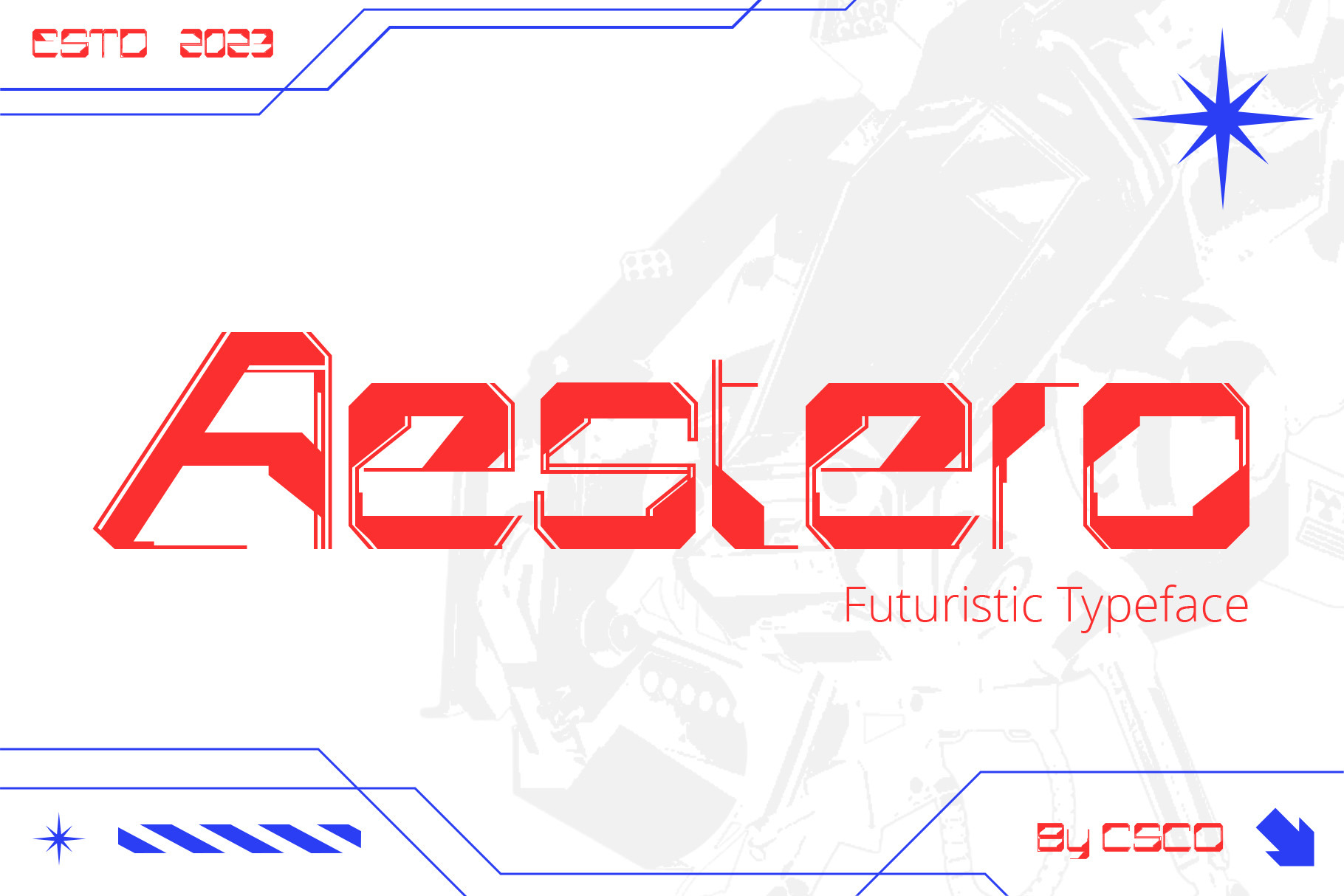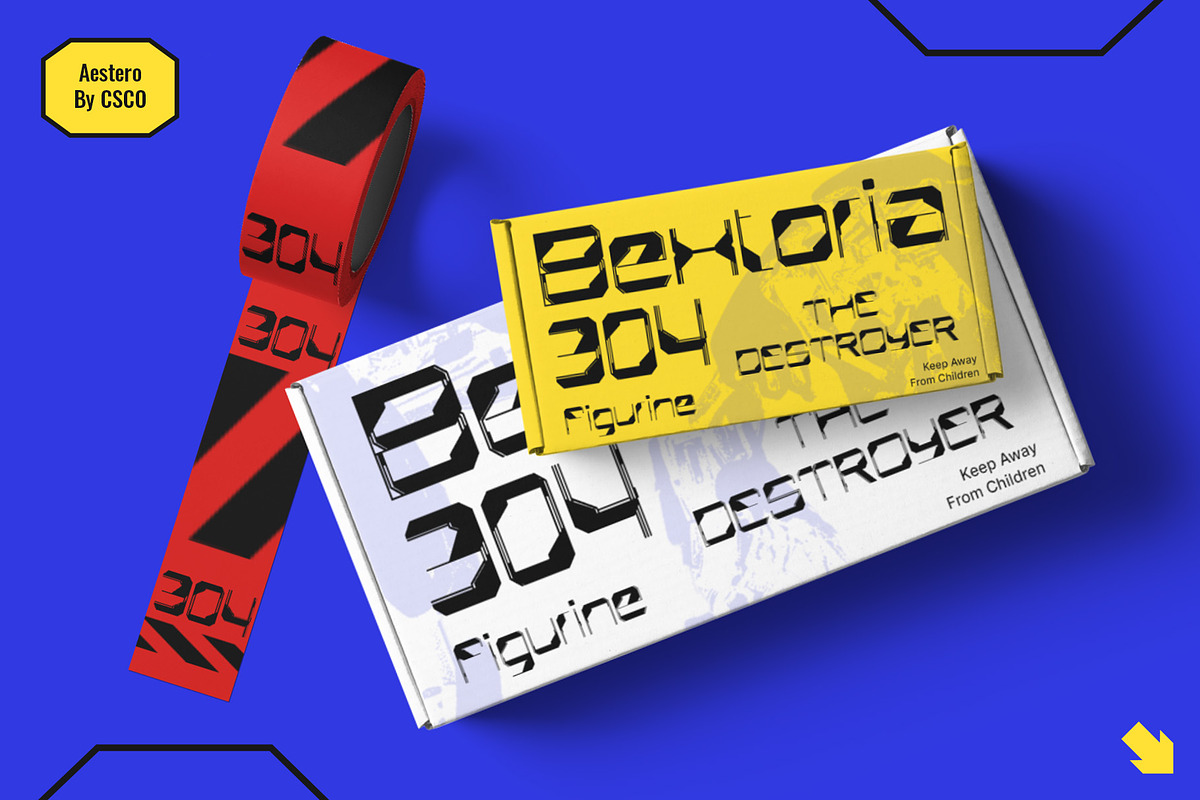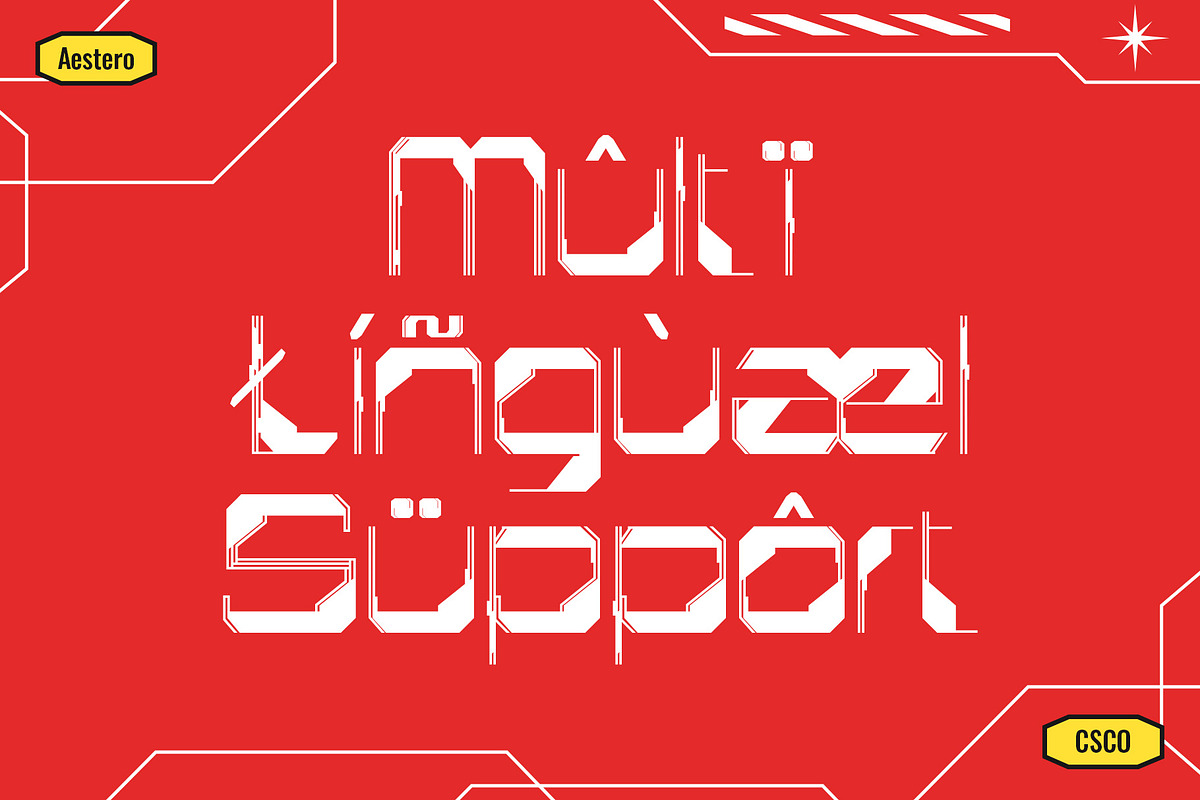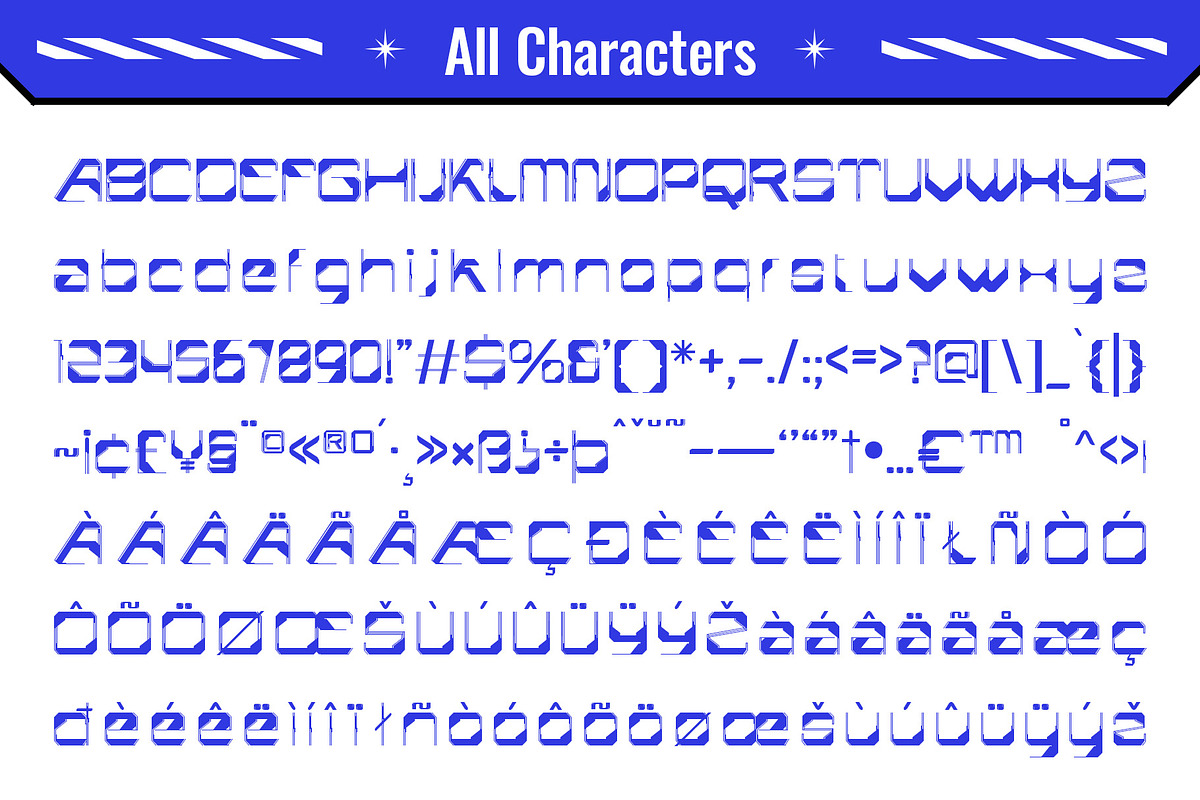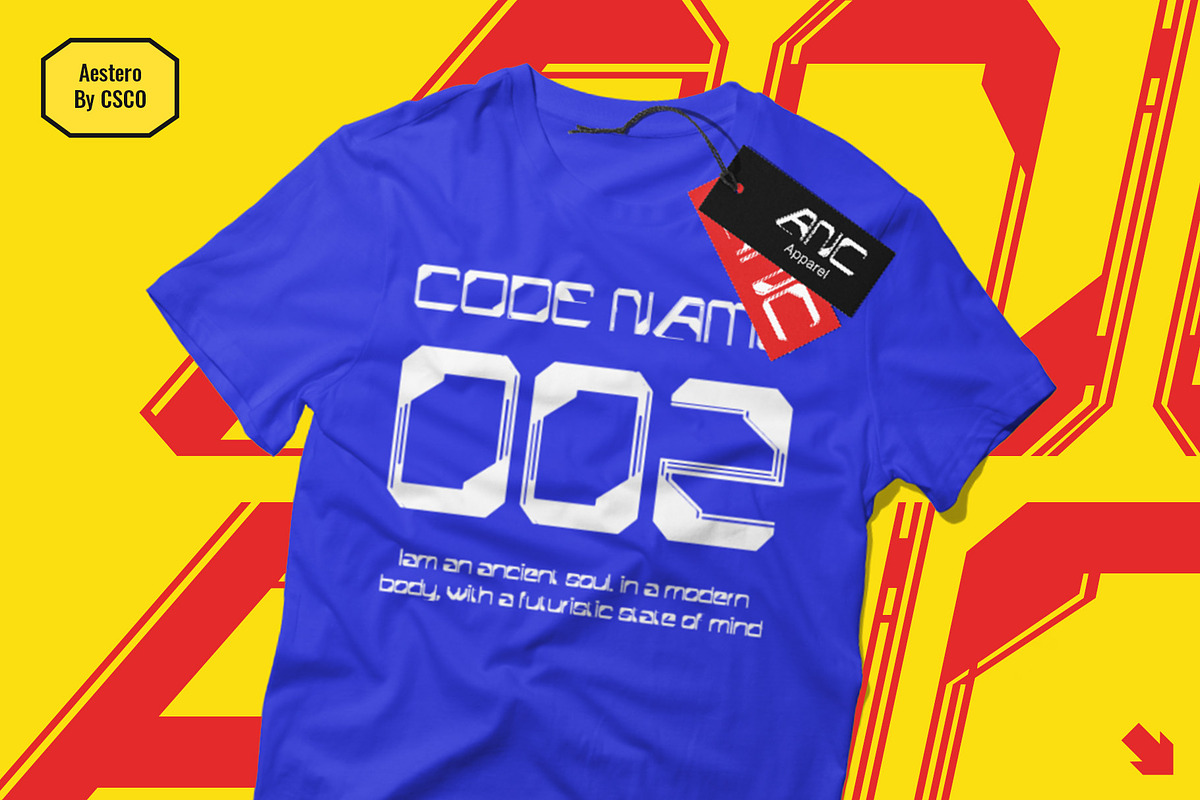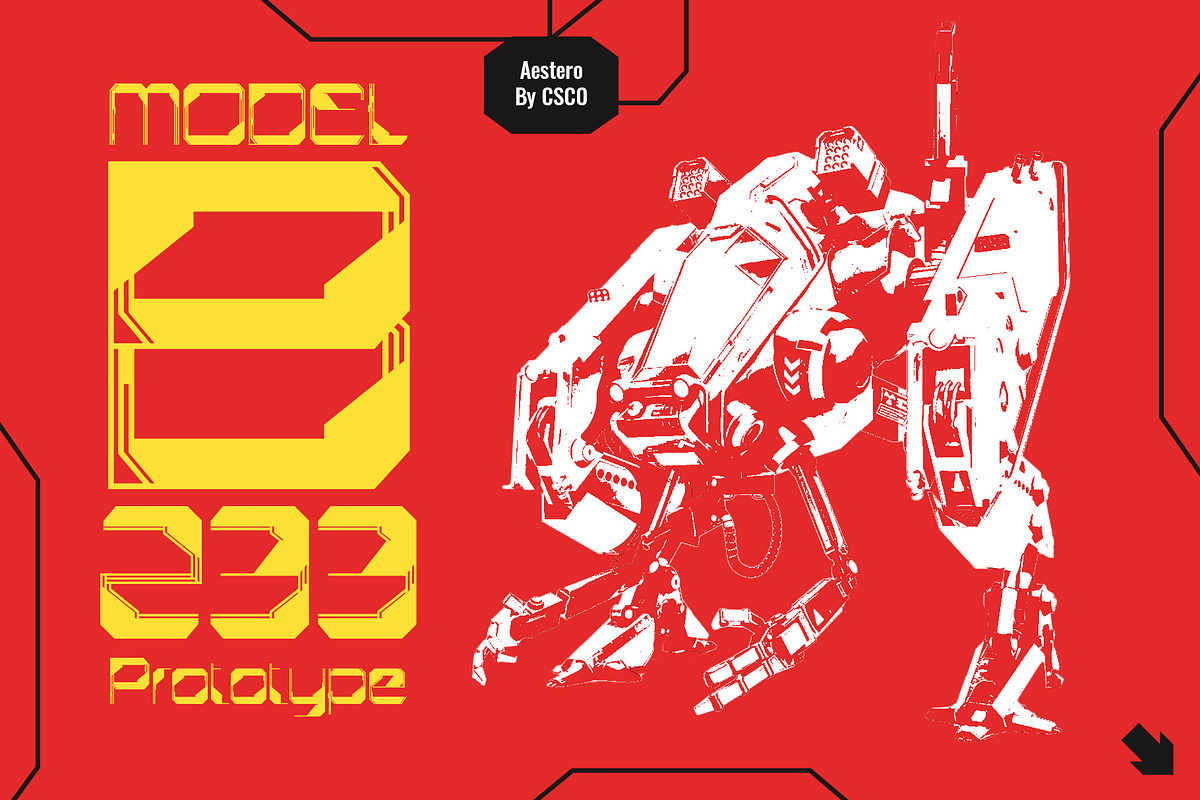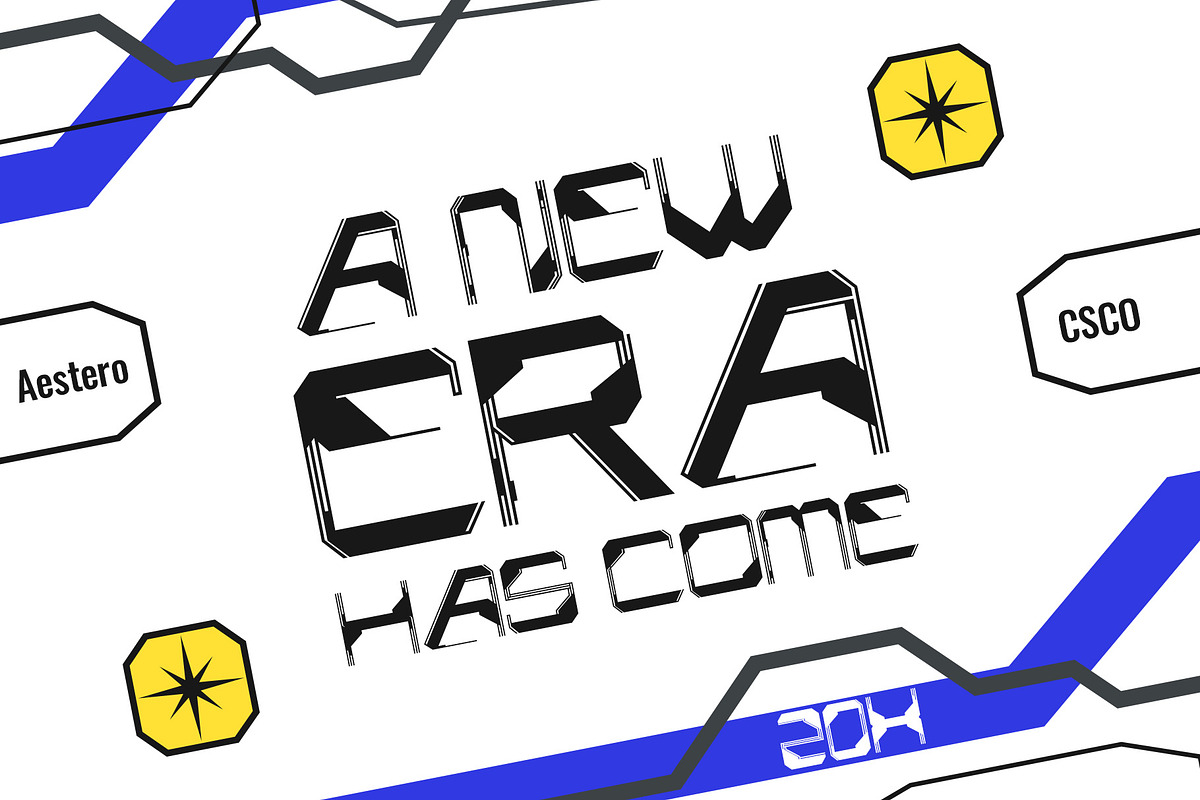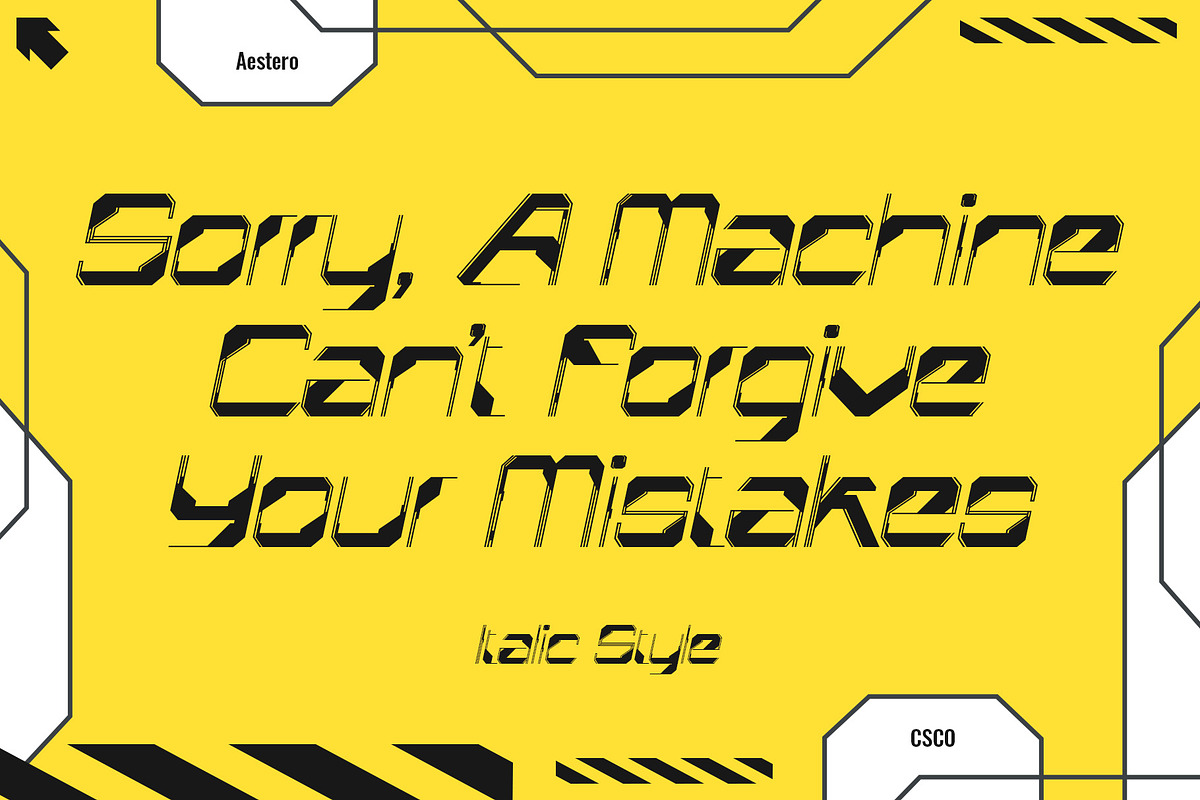
Aestero - Futuristic Typeface
Aestero Futuristic Typeface
Cutting-Edge Inspiration
Aestero Futuristic Typeface, drawing from Gundam and sci-fi aesthetics, embodies a cutting-edge design for a bold display impact.
Sleek Sci-Fi Elegance
Named Aestero, this font seamlessly blends Gundam inspiration with sci-fi elegance, presenting sleek characters with a futuristic charm.
Dynamic and Bold Presence
Aestero commands attention with dynamic and bold letterforms, making it an ideal choice for projects seeking a strong visual presence.
Versatility in Futuristic Design
Beyond its sci-fi roots, Aestero offers versatility, adapting flawlessly to various design contexts, from logos to futuristic-themed content.
In conclusion, Aestero – Futuristic Typeface emerges as a visionary font, embodying the essence of Gundam and sci-fi aesthetics. Its cutting-edge inspiration, sleek elegance, bold presence, and versatile design make Aestero the go-to choice for those seeking a futuristic visual language. Whether you’re crafting a sci-fi logo or infusing futuristic vibes into your content, Aestero stands ready to propel your designs into the next era.